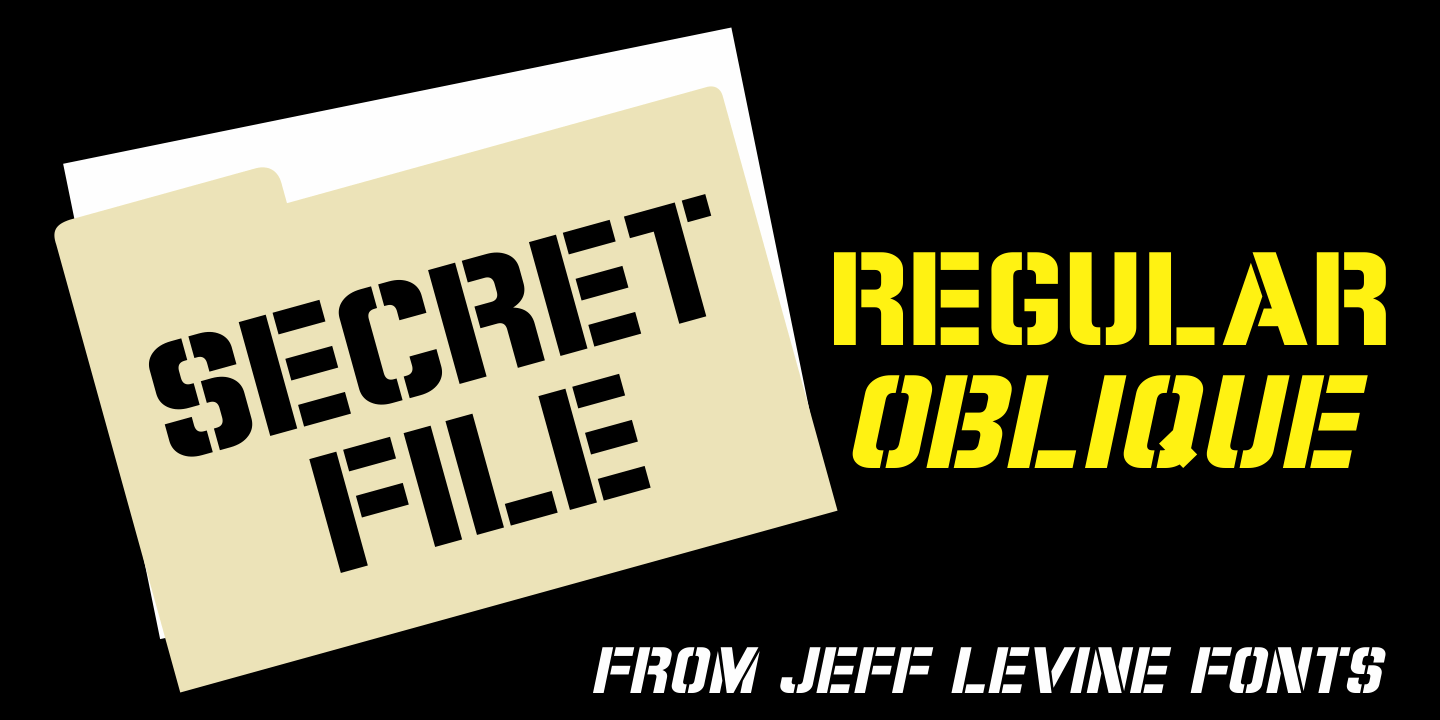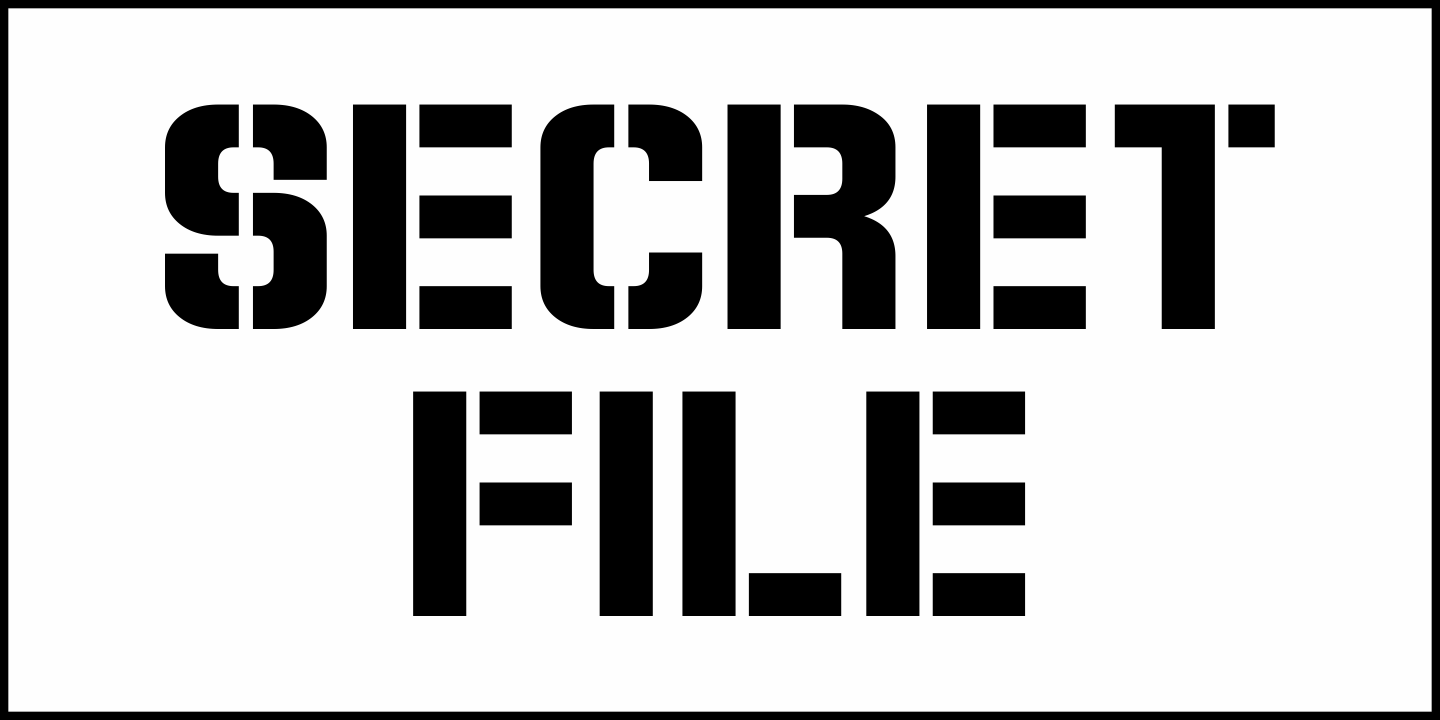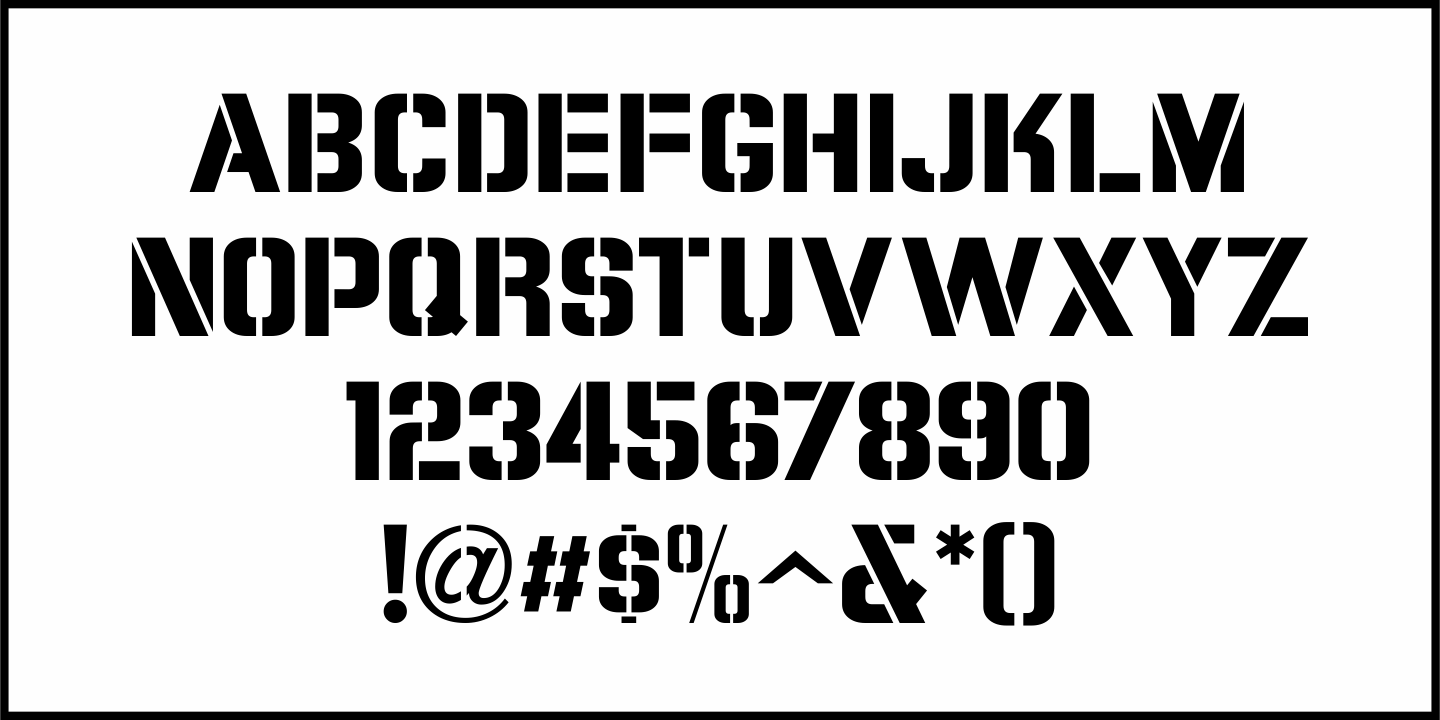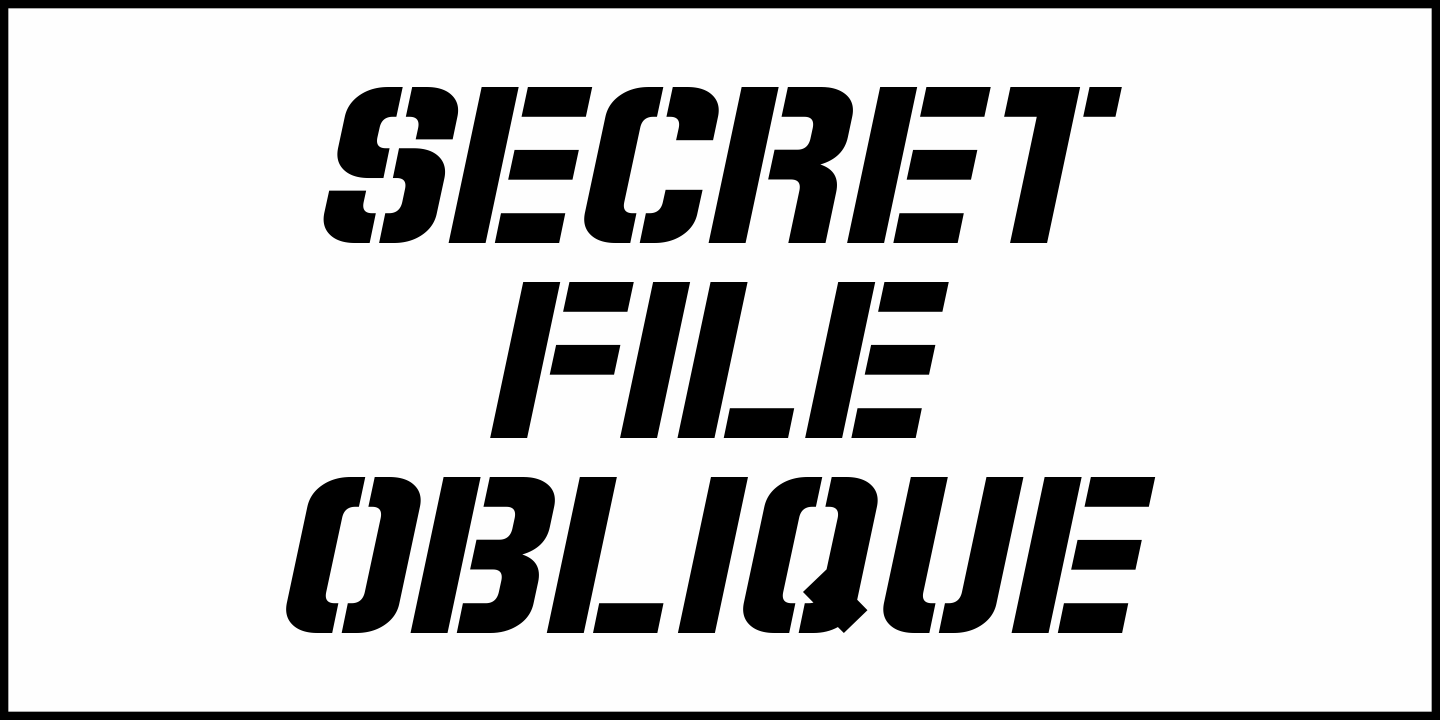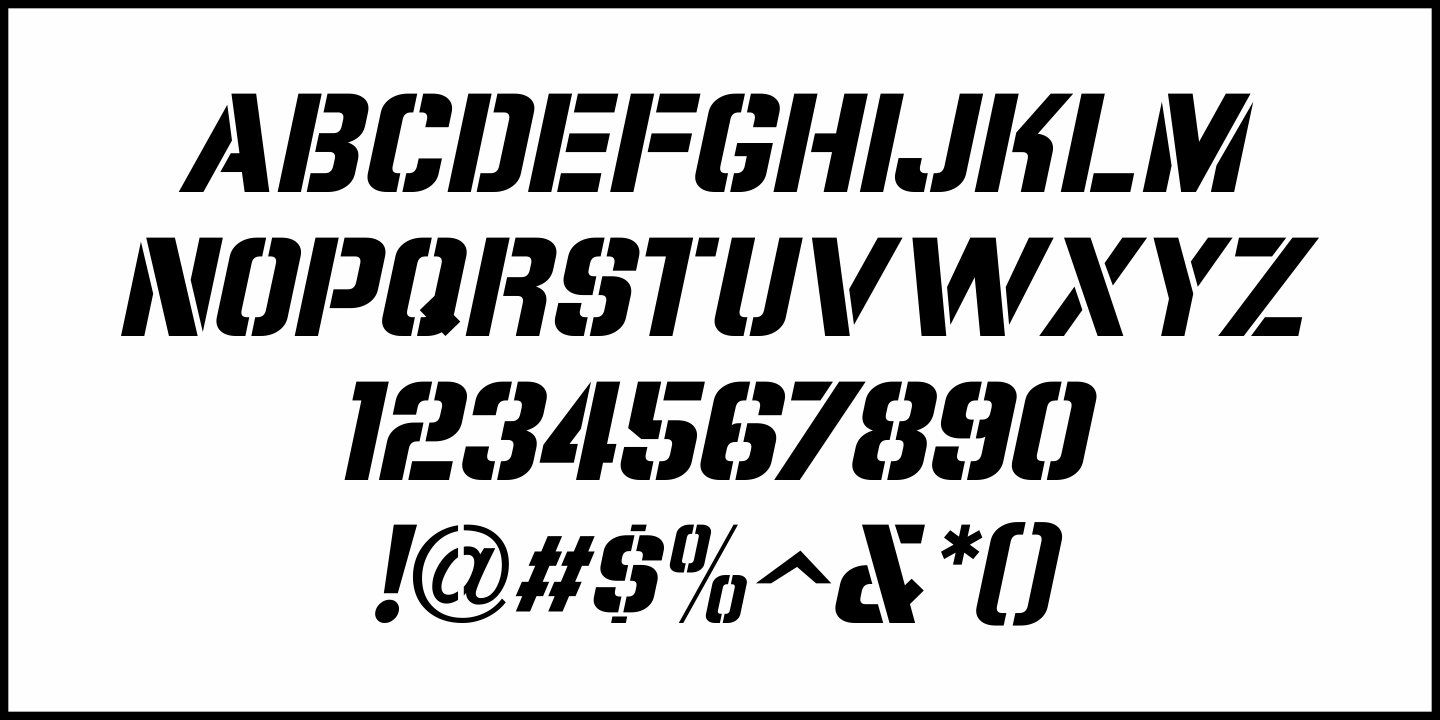
Secret File
The stenciled hand lettering in the credits for the 1965 Michael Caine spy thriller “The Ipcress File” inspired Secret File JNL, which is available in both regular and oblique versions.